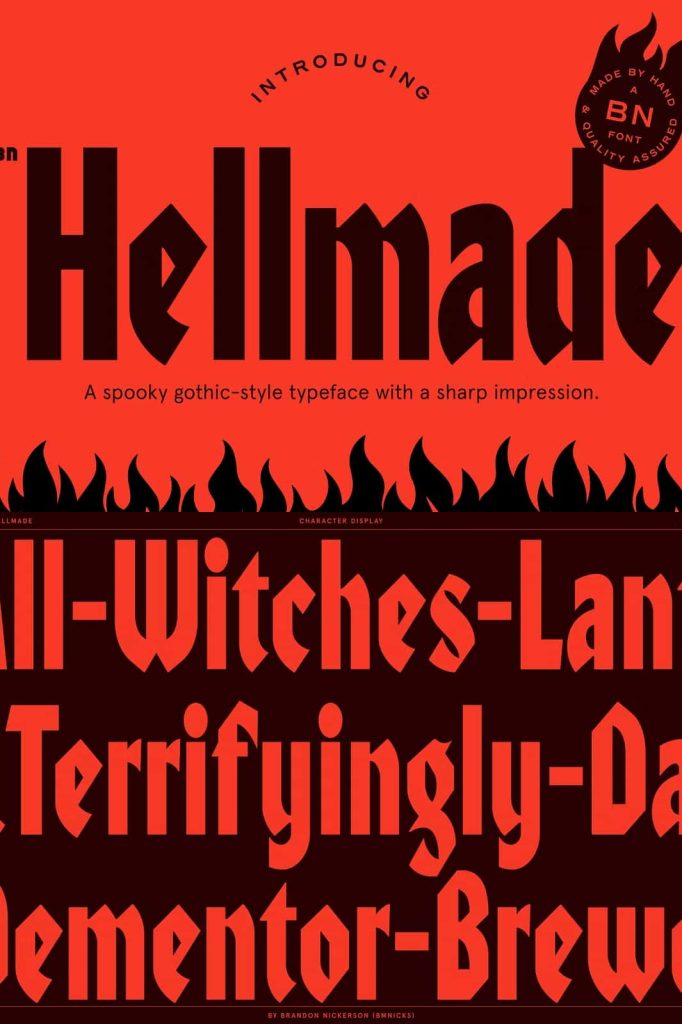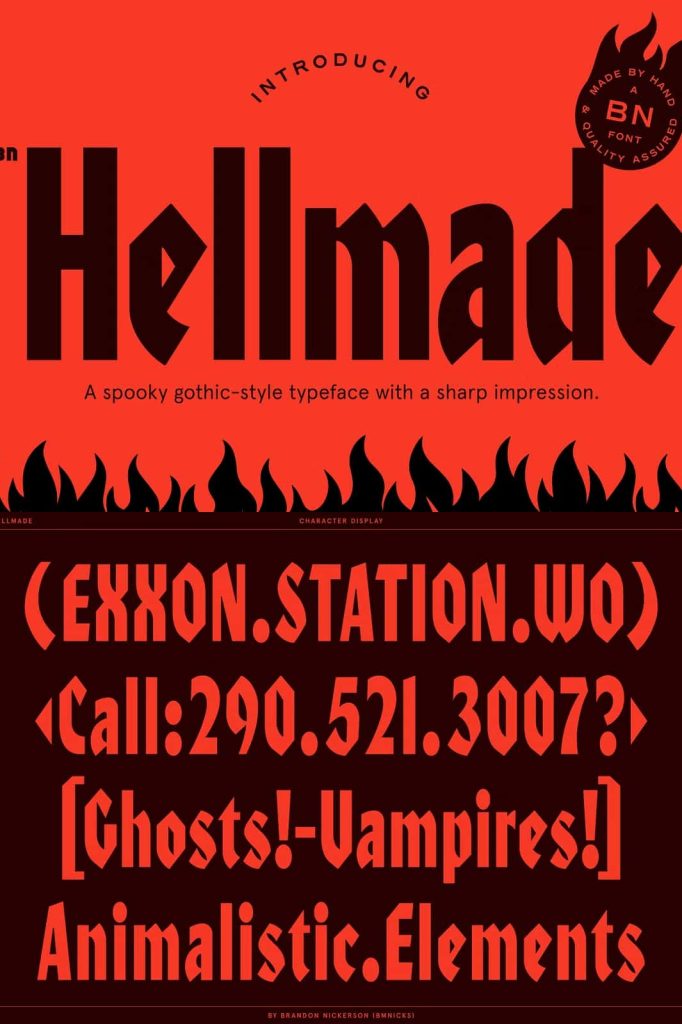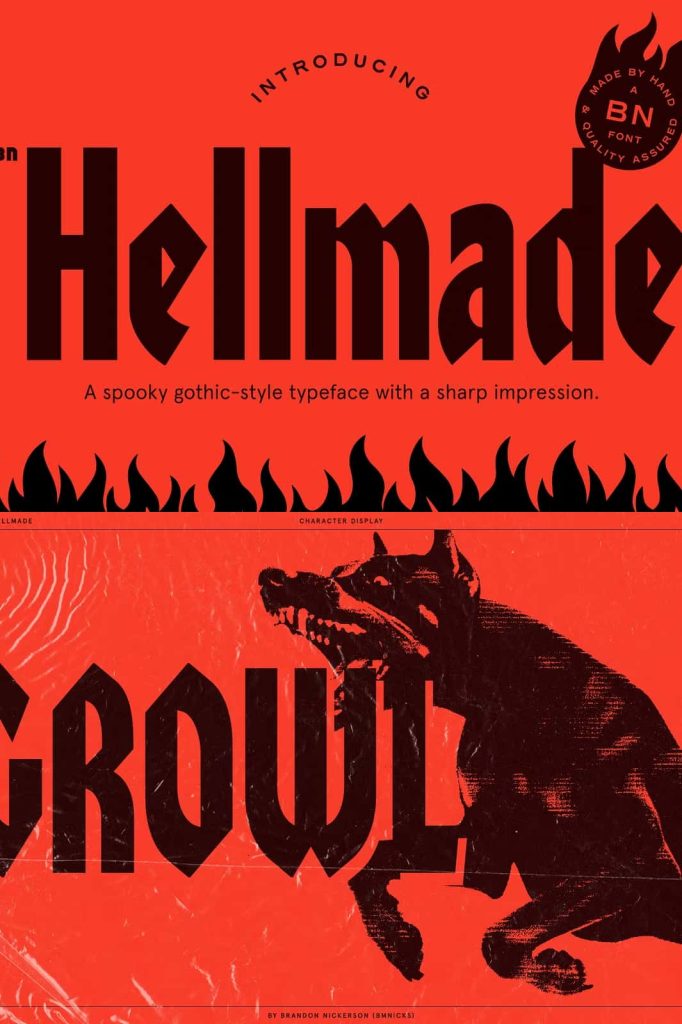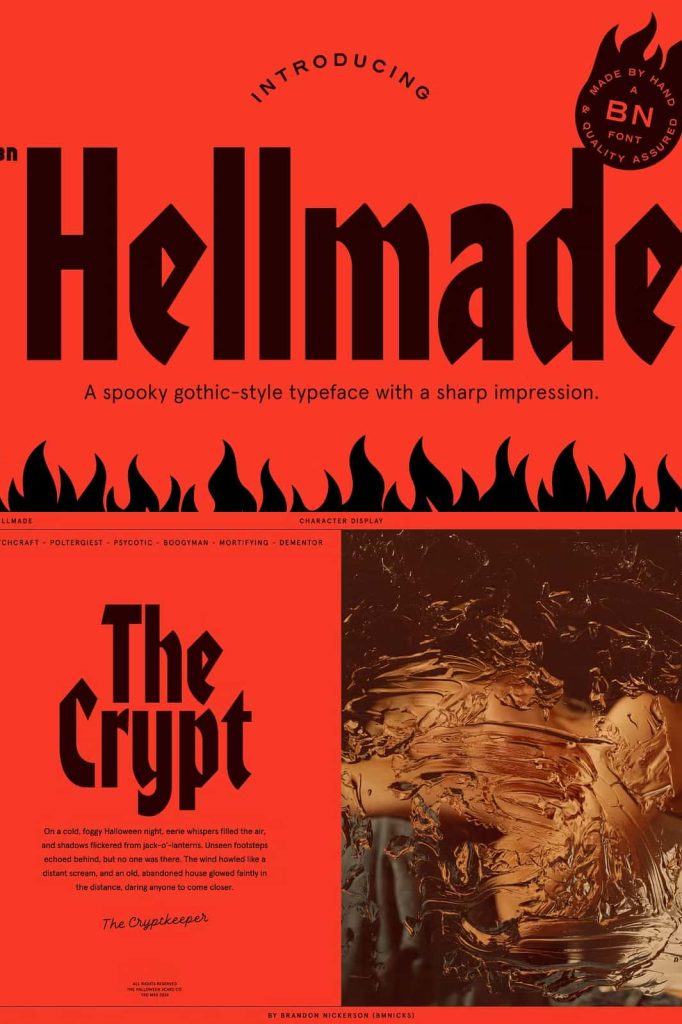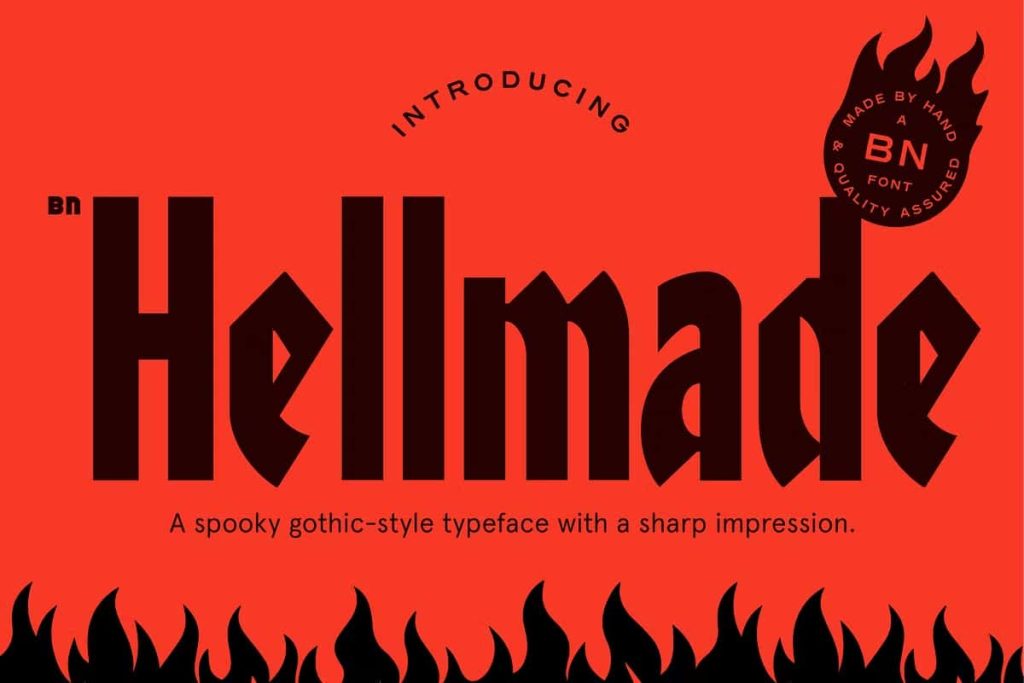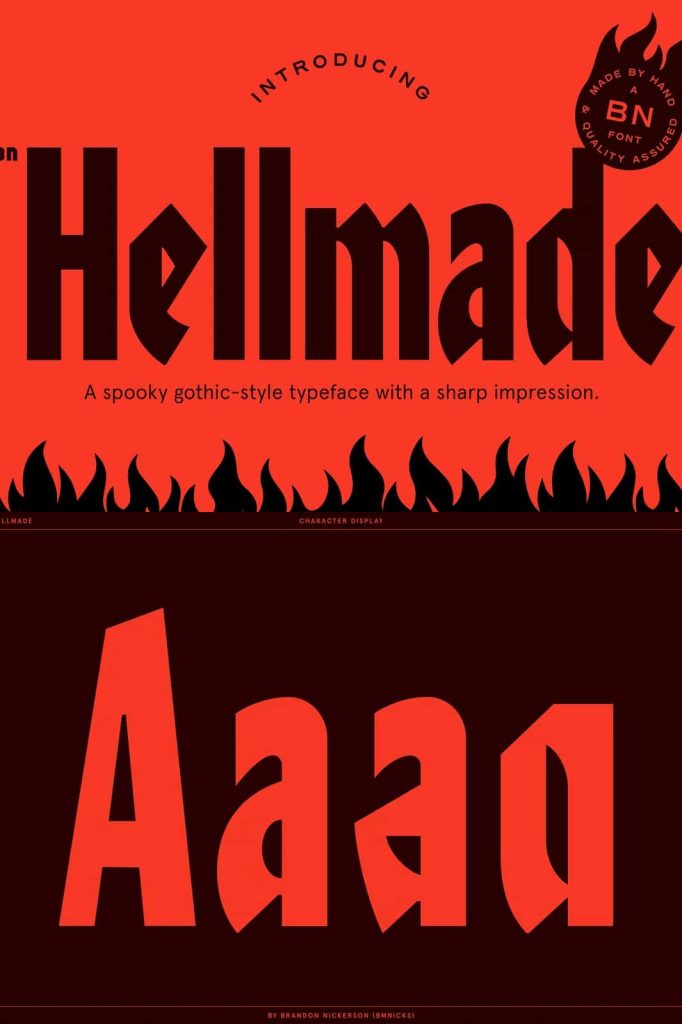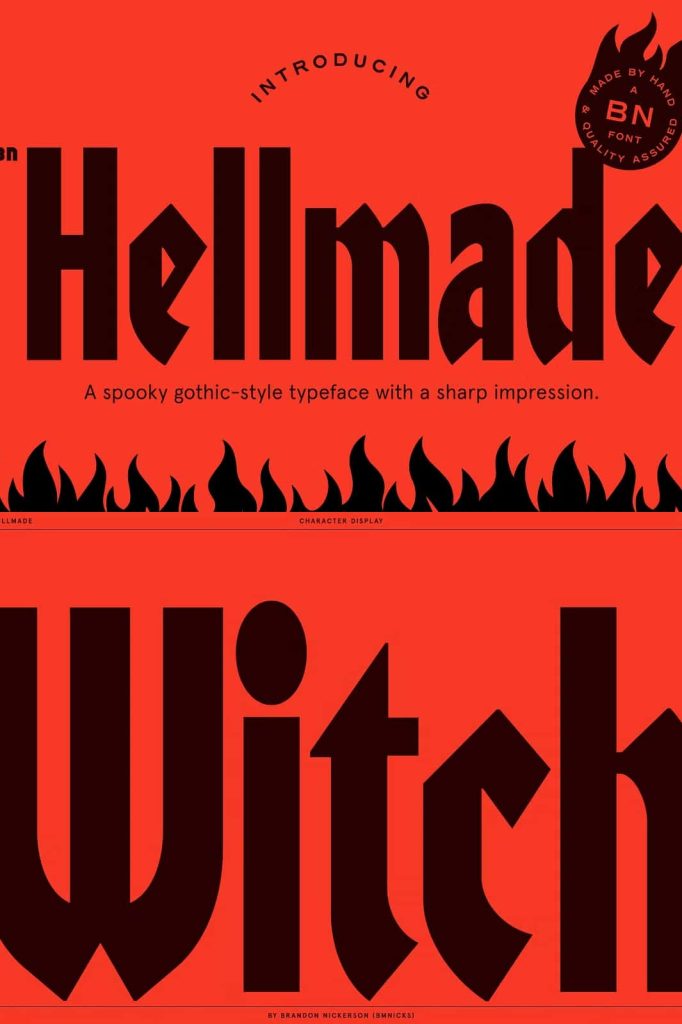
BN Hellmade is a typeface that brings the eerie and mysterious to life. With angular lines and a bold, gothic vibe, this font is perfect for anything that needs a sharp impact. Whether it’s for haunted house posters, horror movie titles, or any bold design, Hellmade is the perfect fit